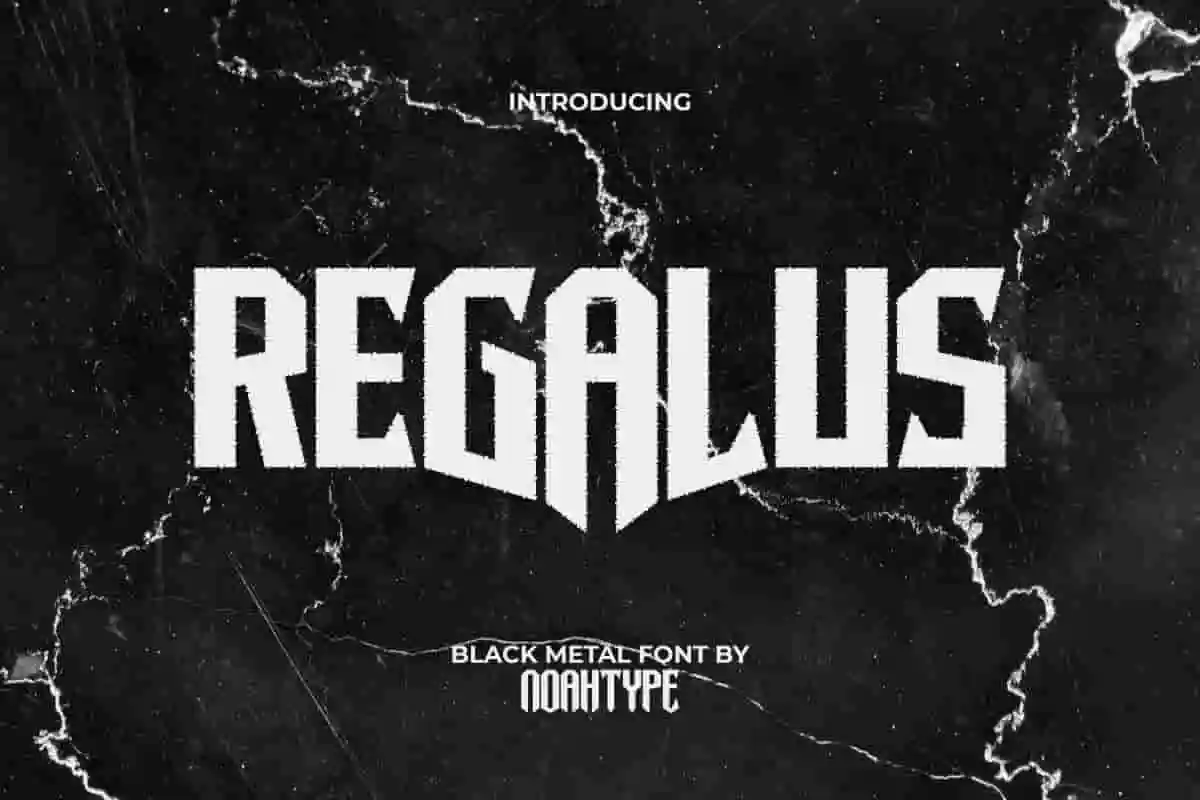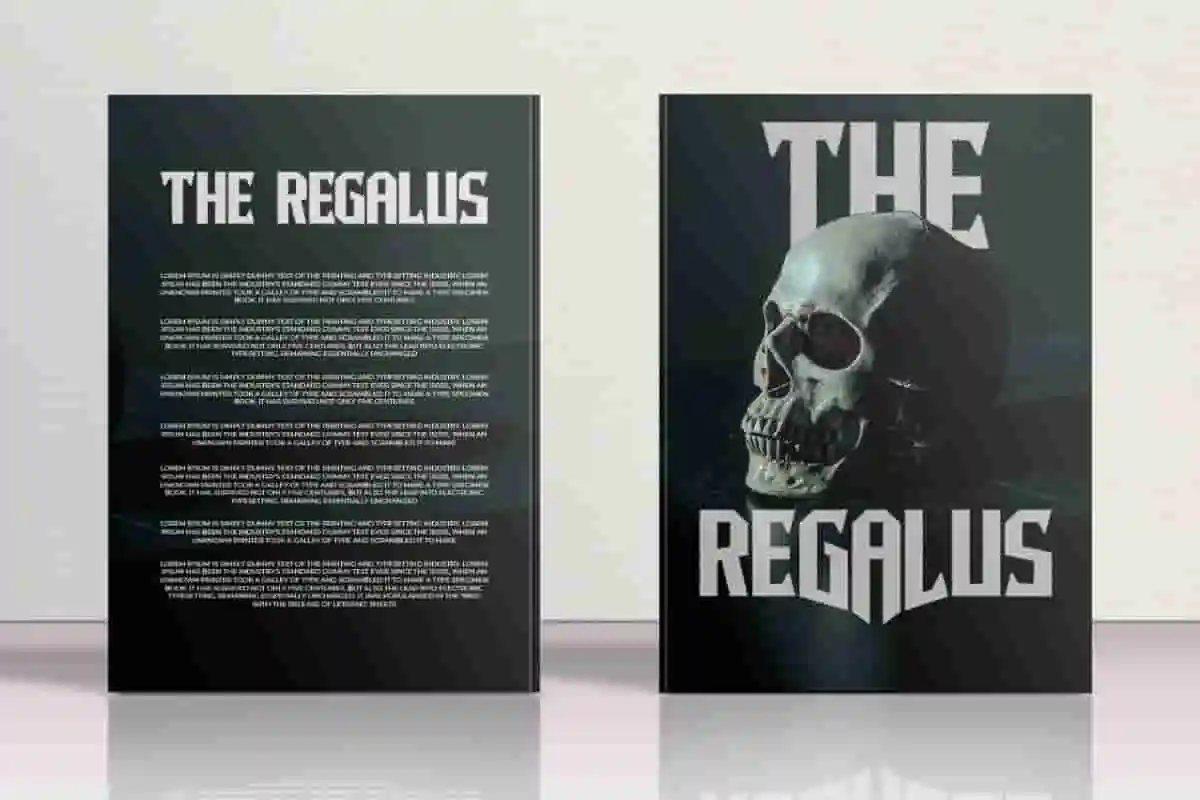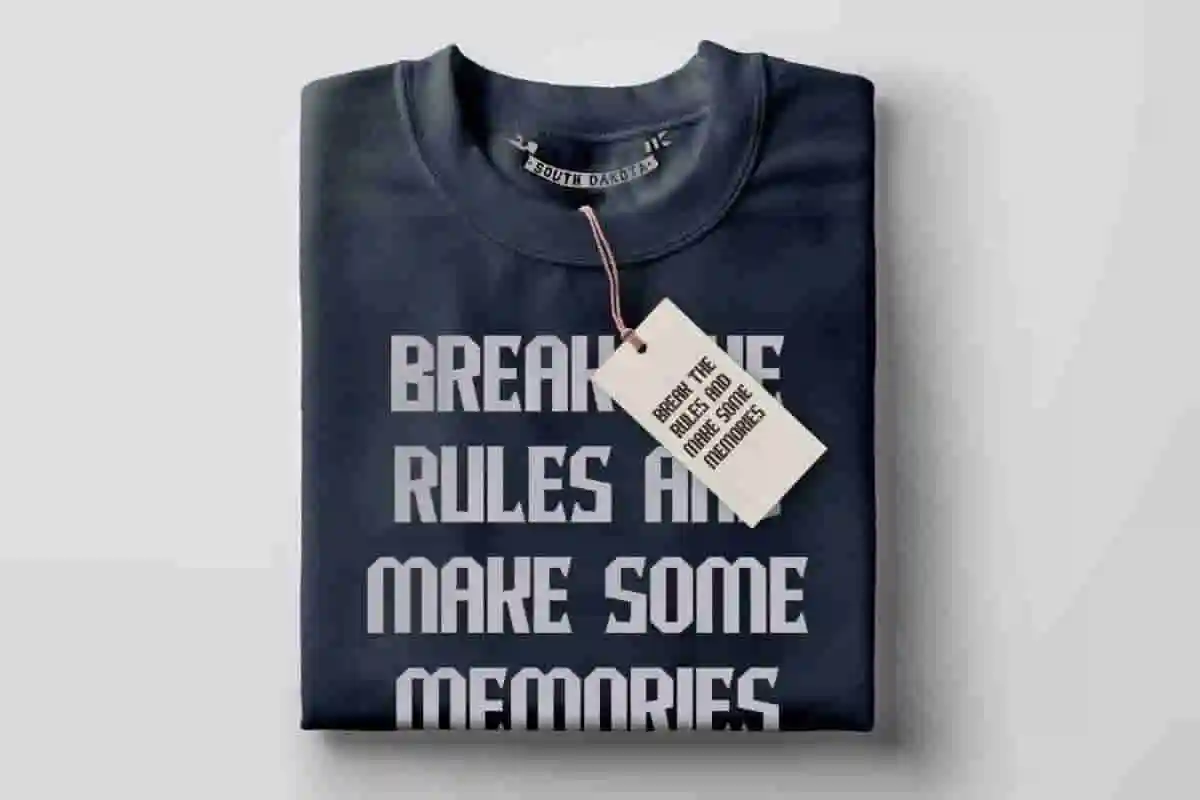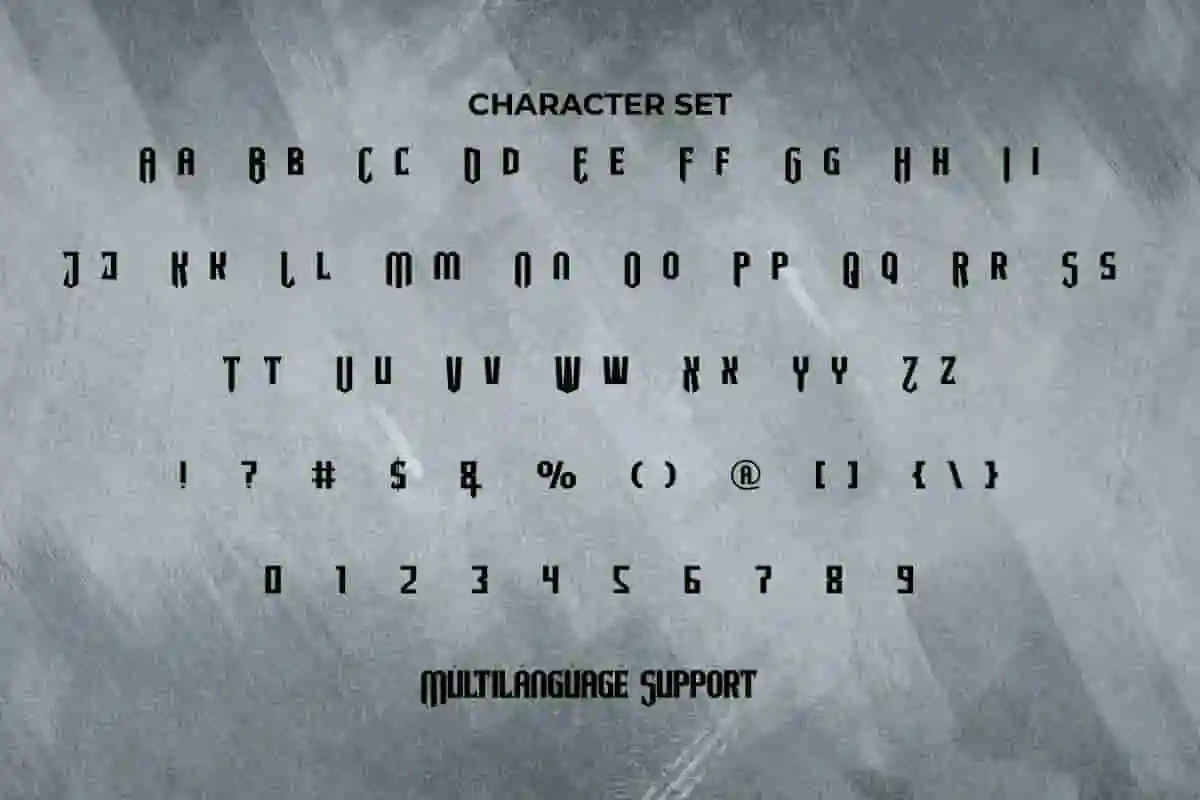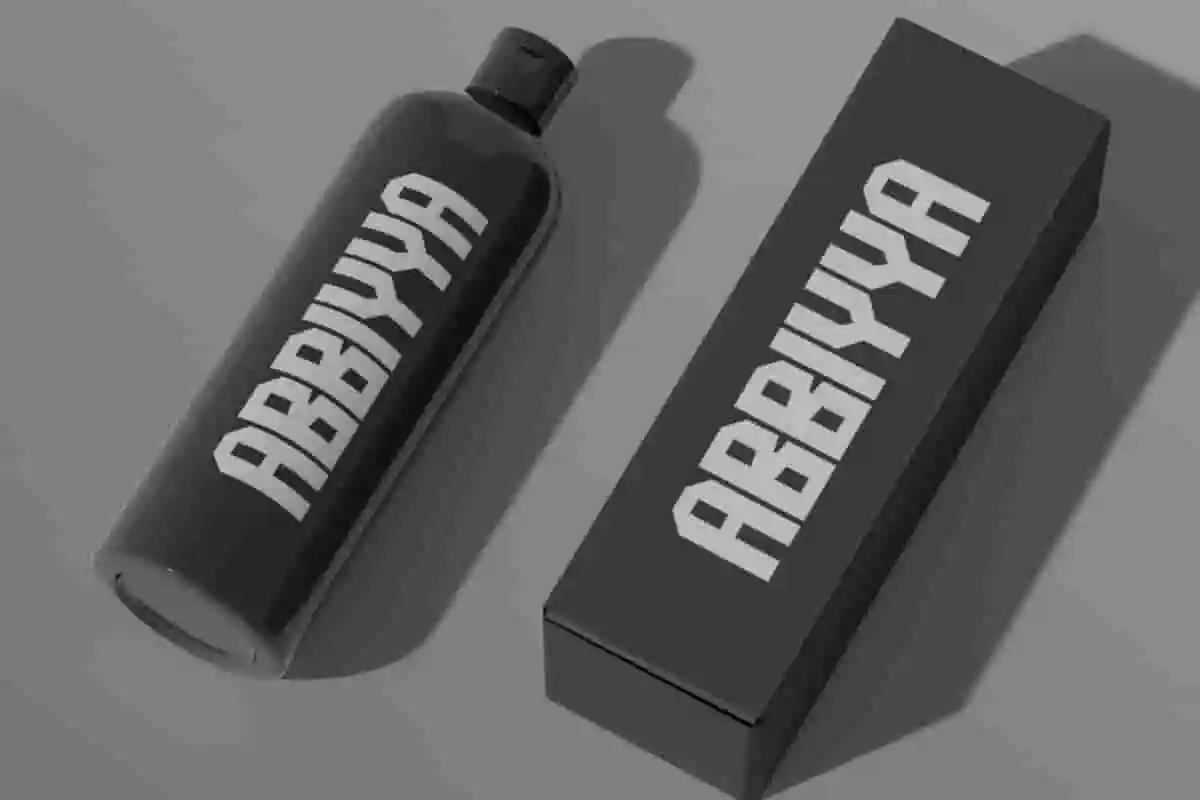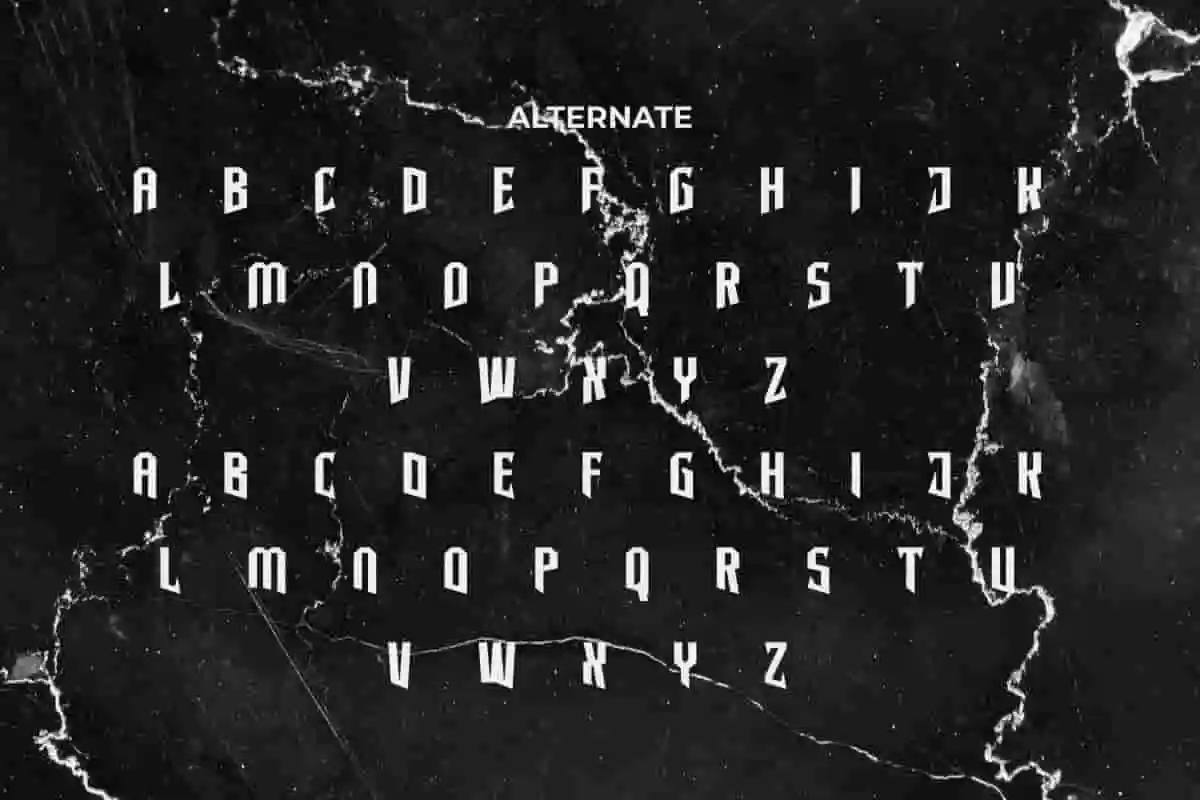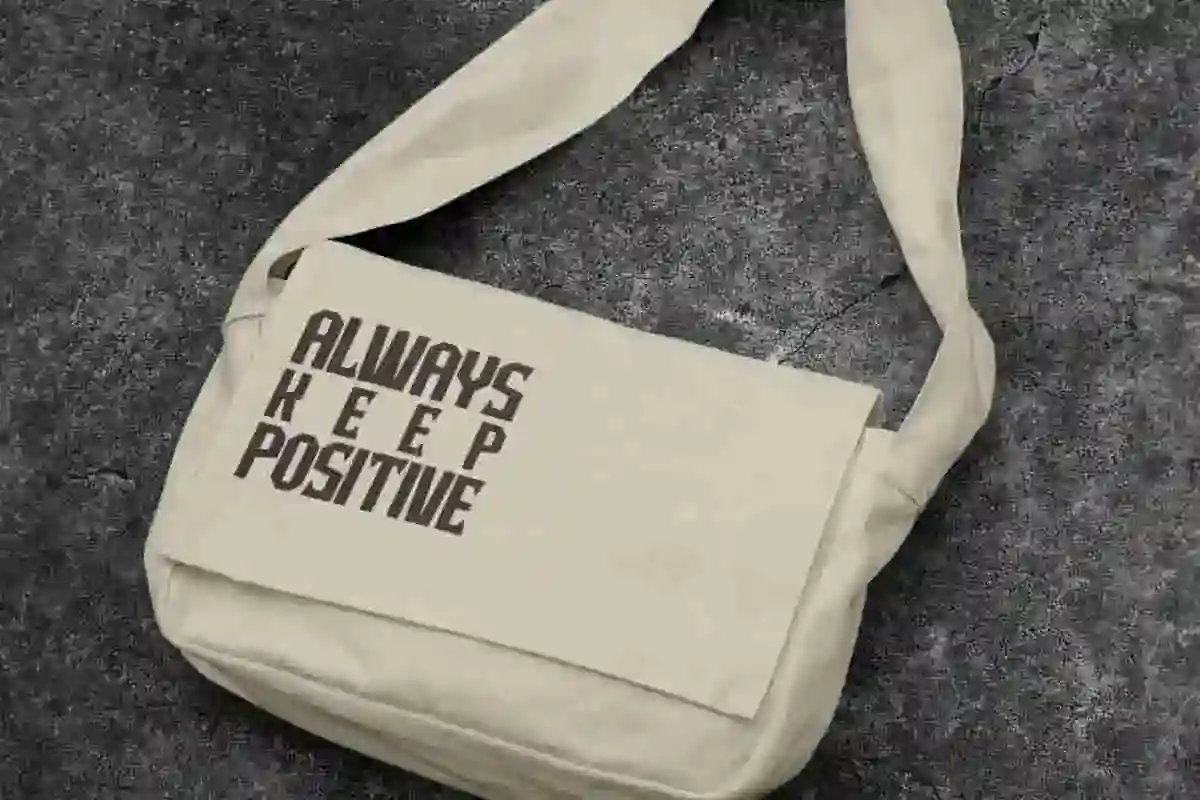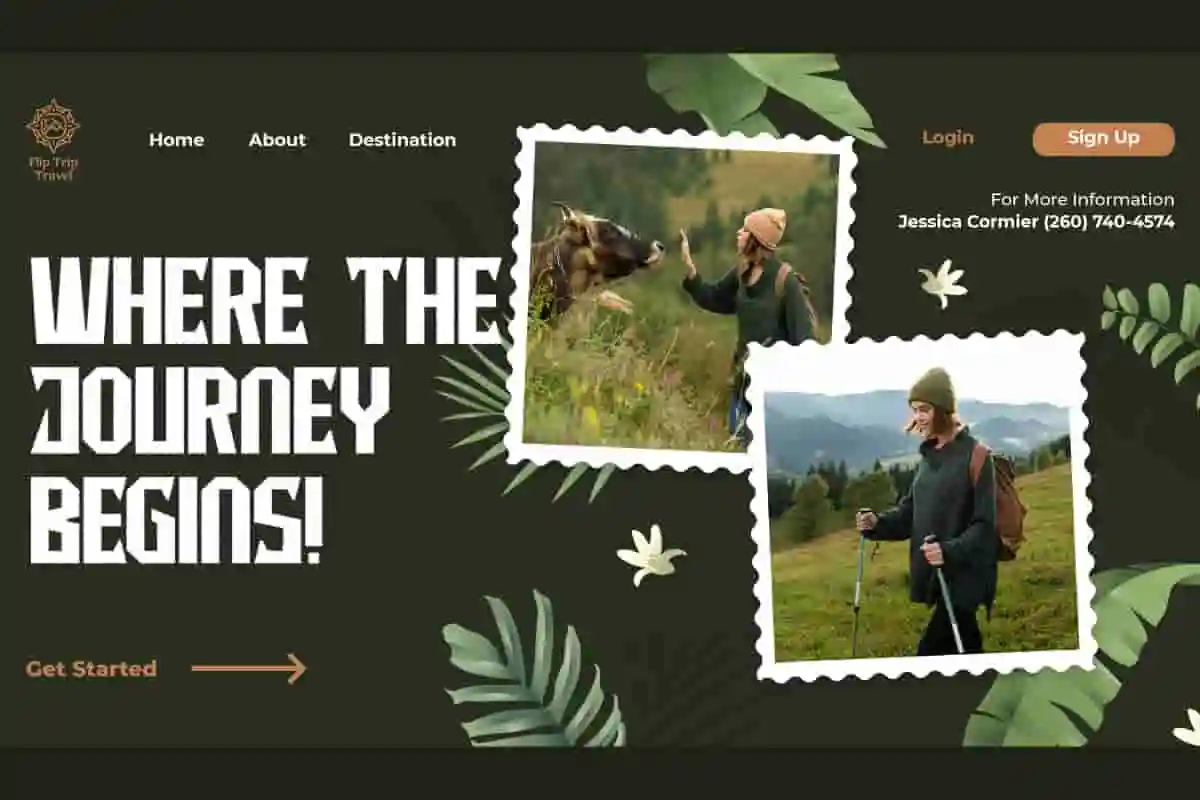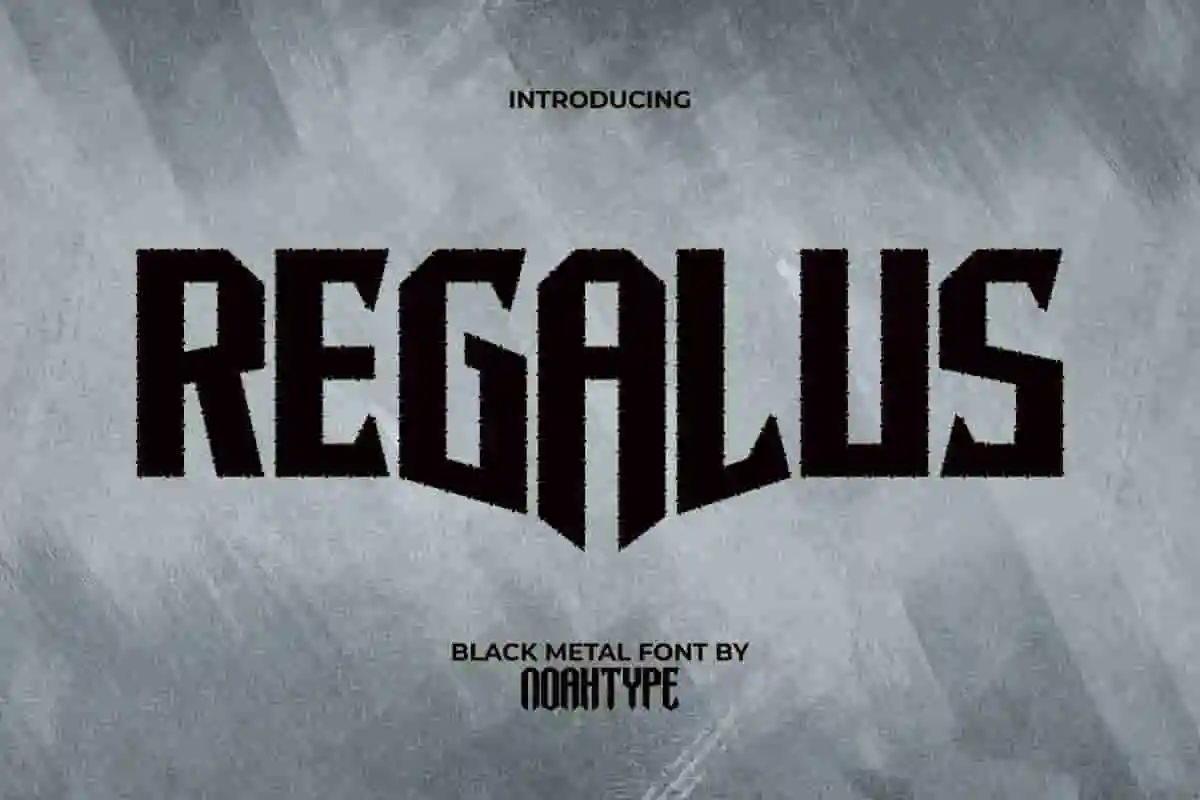
Regalus Font is a bold and sharp black metal font, created by NoahType. Each side of each letter has a rough texture, leaving a slight creepy impression. It will be perfect for any designs, such as brand image, custom design, invitation, label, marketing material, menu, poster, printing, product packaging, quotes, signage, website, and many more!
Regalus Font includes full set of ALL CAPS for Uppercase and Lowercase Basic Characters, Numerals, Punctuation, and Symbol. The Alternate character will make your design outstanding and also a perfect choice for many industries, such as fashion, game, movie, accessories, advertising, art, automotive, café, event or festival, printing, publishing, etc.